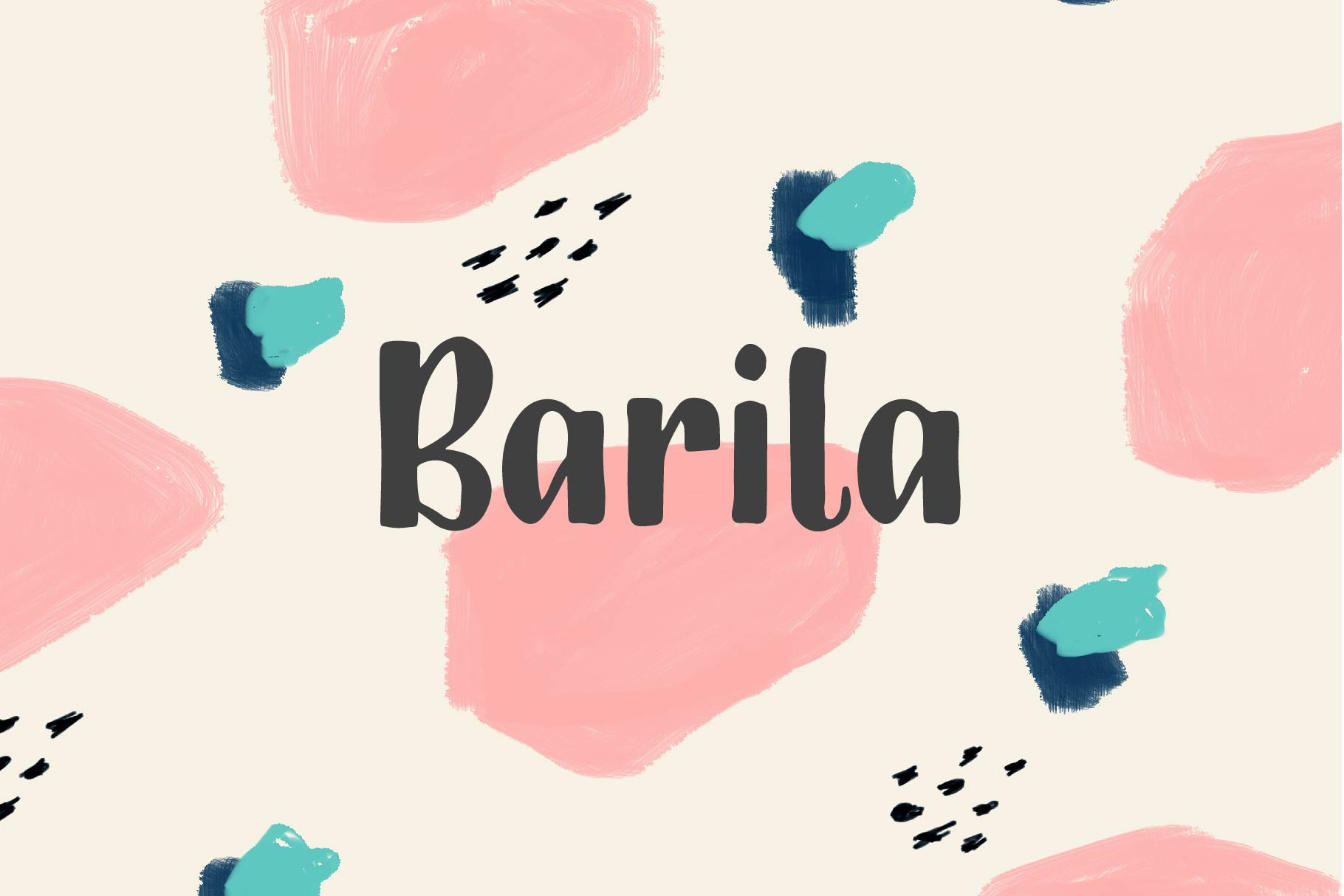
Barila Multilingual Font
Barila is a fun hand written font that is perfect for projects like games, apps, books, holiday cards, and nursery art projects. It is very readable while keeping it's fun and whimsical personality. Multilingual characters are included for most European languages.